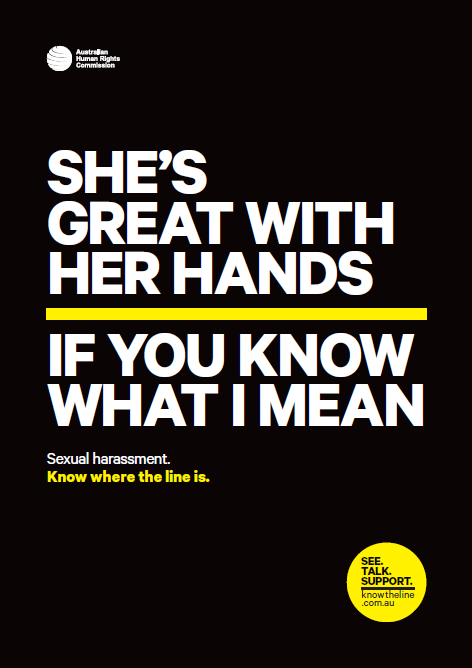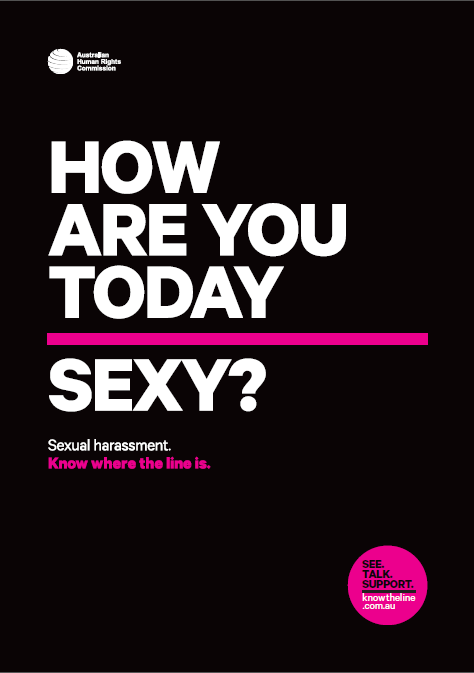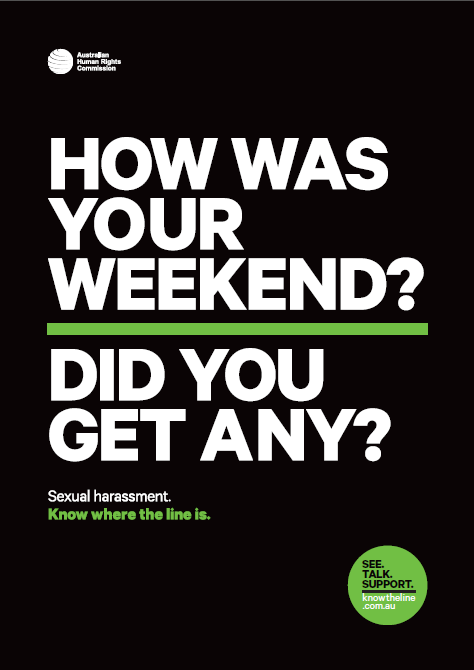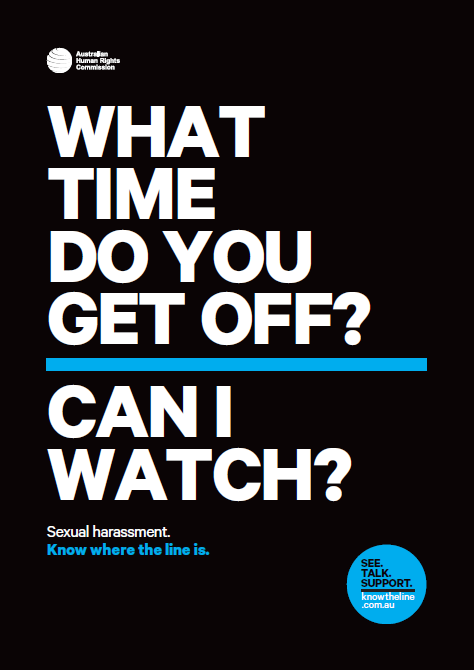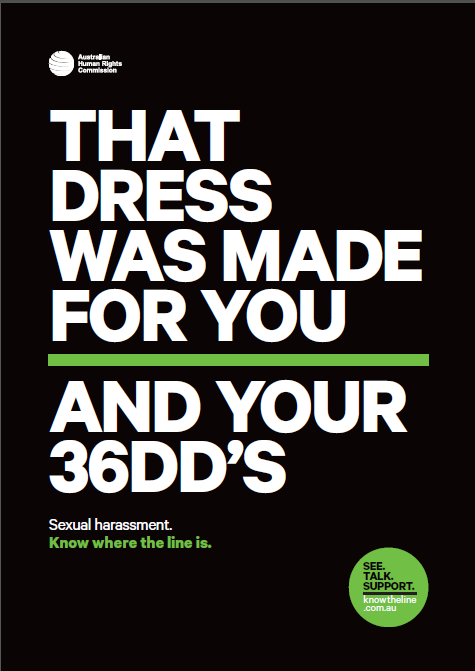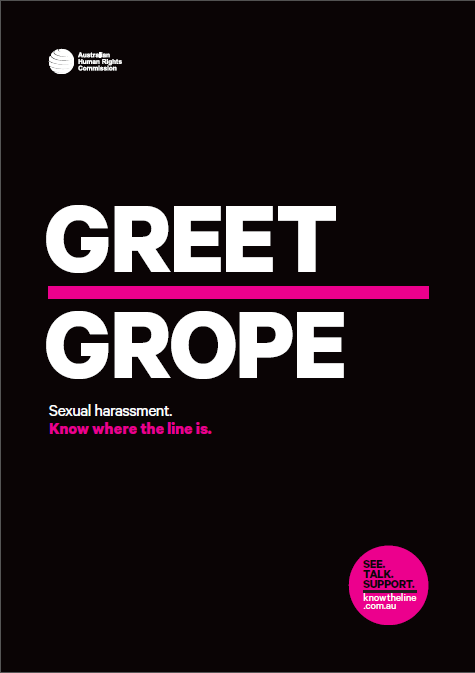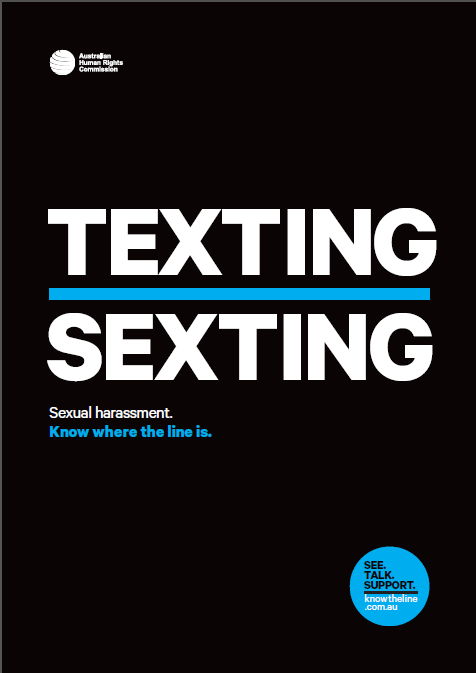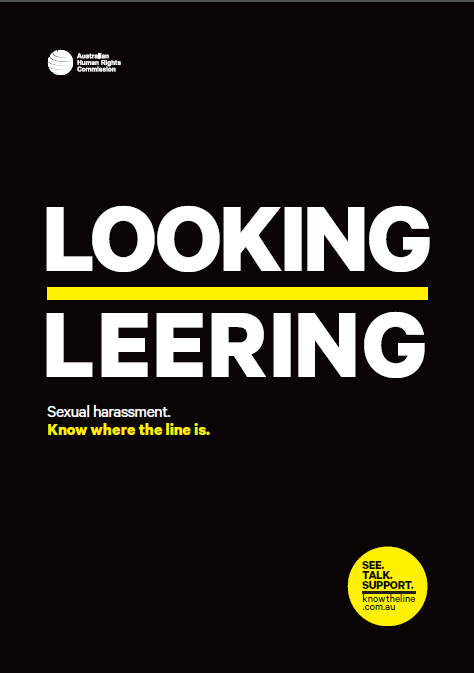
Typography against the perverts
The stunning typographic posters from the Australian Human Rights Commission’s “Know the Line” campaign aim to prevent and reduce the harm of sexual harassment in Australian workplaces. The copywriter of this campaign has done amazingly good job, not to mention the designers who have managed to treat with the right amount of straightforwardness these social messages.